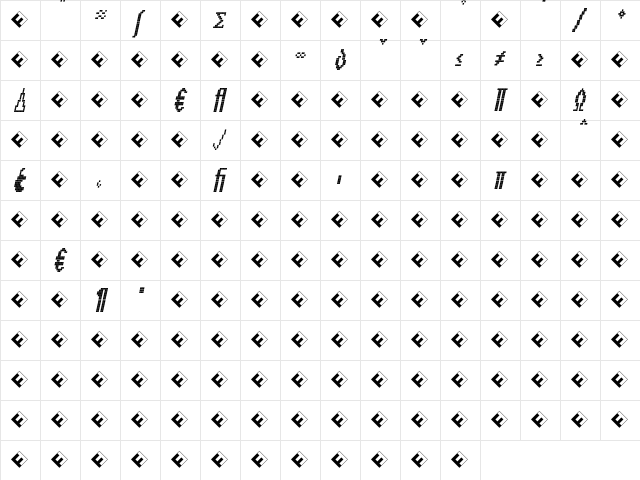
CallFourL-ItalicExp Regular
Design Context for CallFourL-ItalicExp Typeface
CallFourL-ItalicExp is a composed and adaptable typeface that performs quietly and consistently across a wide range of design contexts. The dynamic lean of this cut emphasises speed and emphasis in any layout.
Pro Tip: Use CallFourL-ItalicExp for emphasis, pull quotes, and subheadings where its slanted energy can add rhythm to the layout.